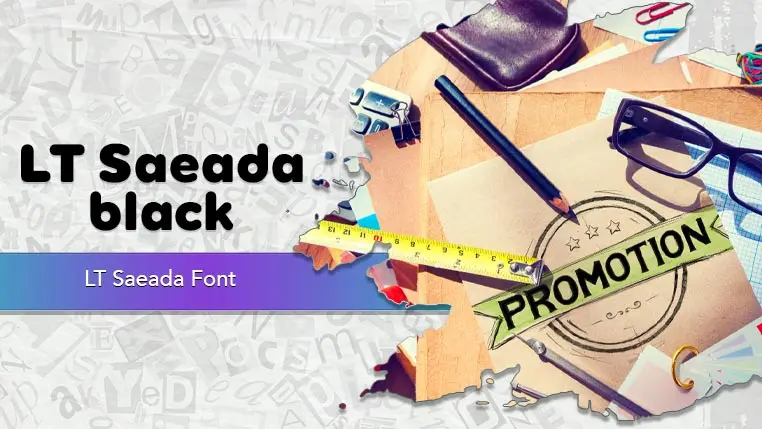
The LT Saeada font family may be ideal for you if you enjoy working on an artistic design project. The lively, expressive look of this typeface, which was created by LyonsType, makes it ideal for Headlines and Titles, Marketing Materials. And its clear letterforms and modern style make it ideal for drawing attention in headlines, posters, and editorial designs. and other light-hearted visual projects.
Black, Bold, Extra Black, Extra Bold, Extra Light, Hairline, Light, Medium, Regular, Semi Bold, Thin are the eleven primary font styles of the LT Saeada font family. You may build dynamic, visually appealing text layouts with the distinct flair that each style offers. With crisp, readable lines and a relaxed tone.